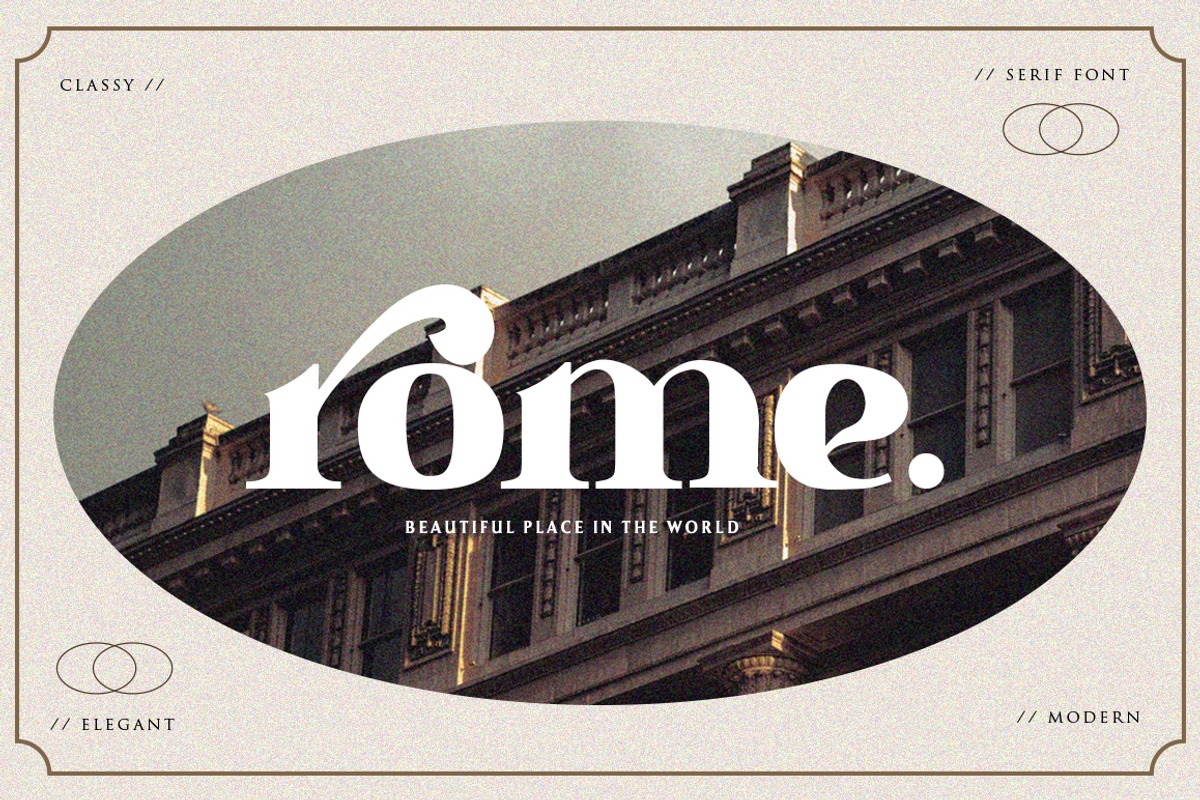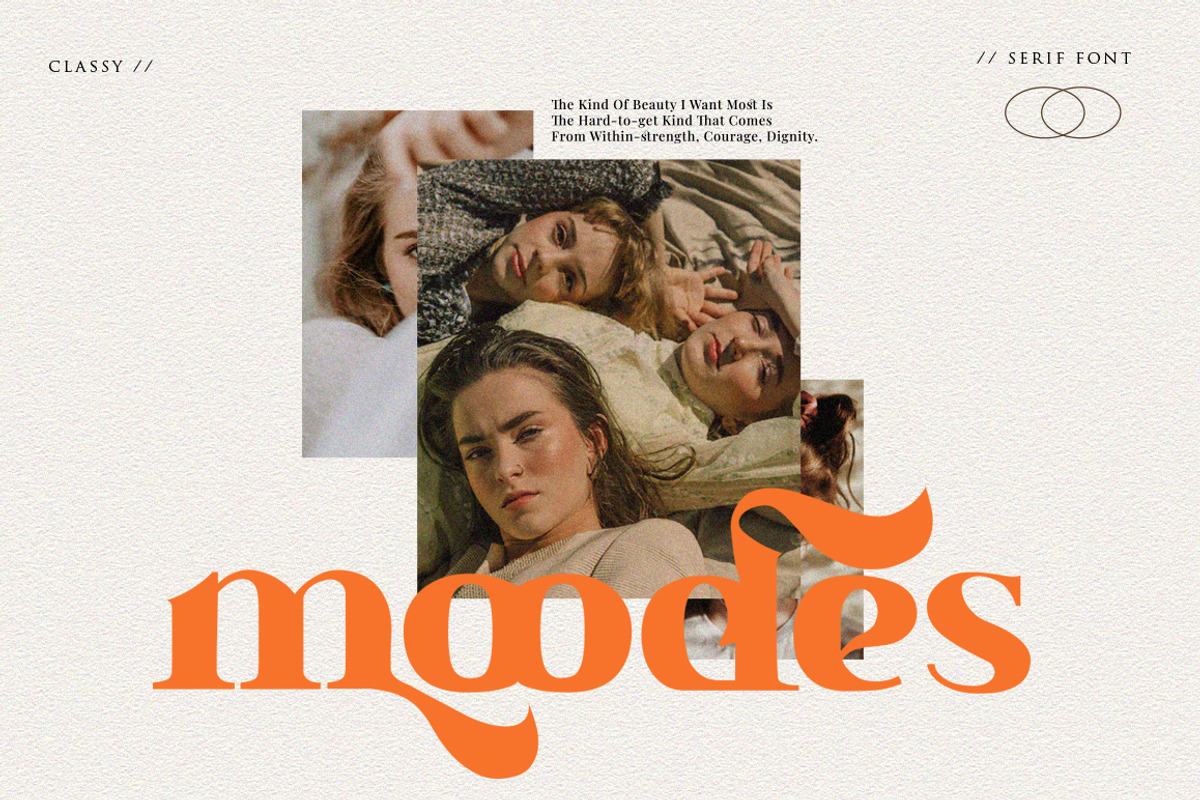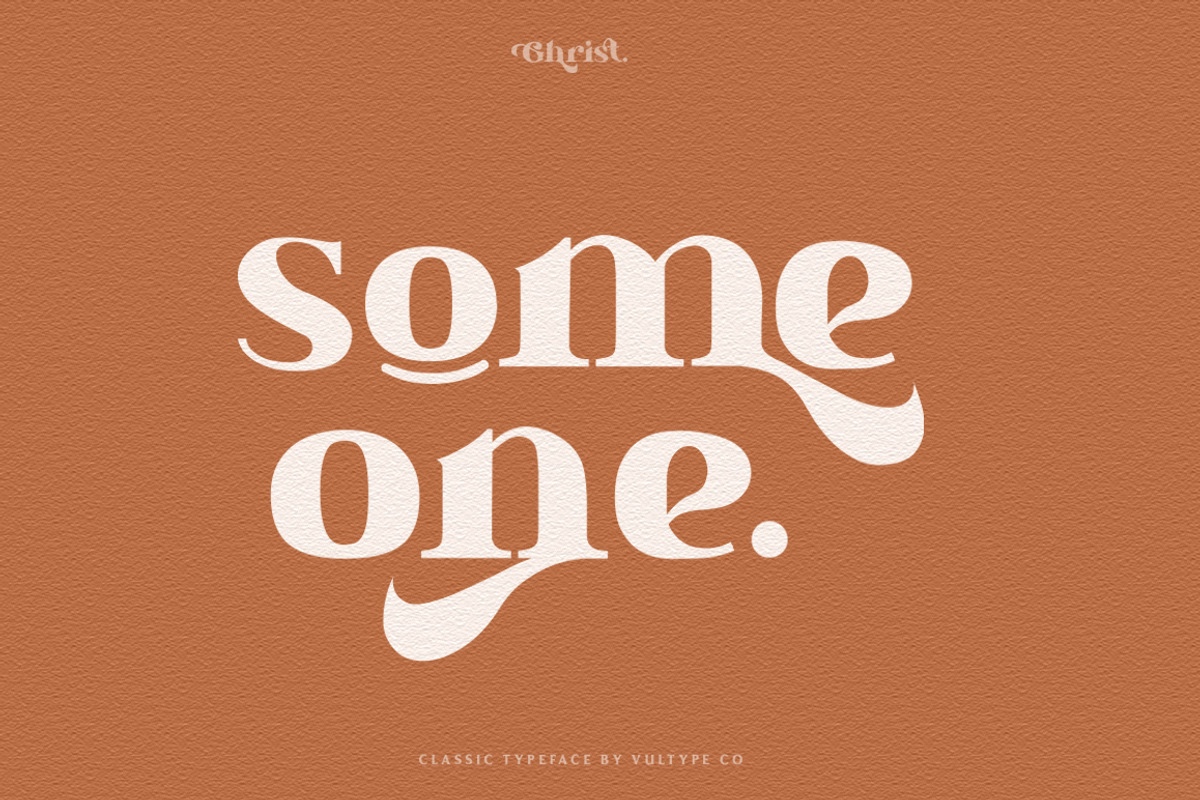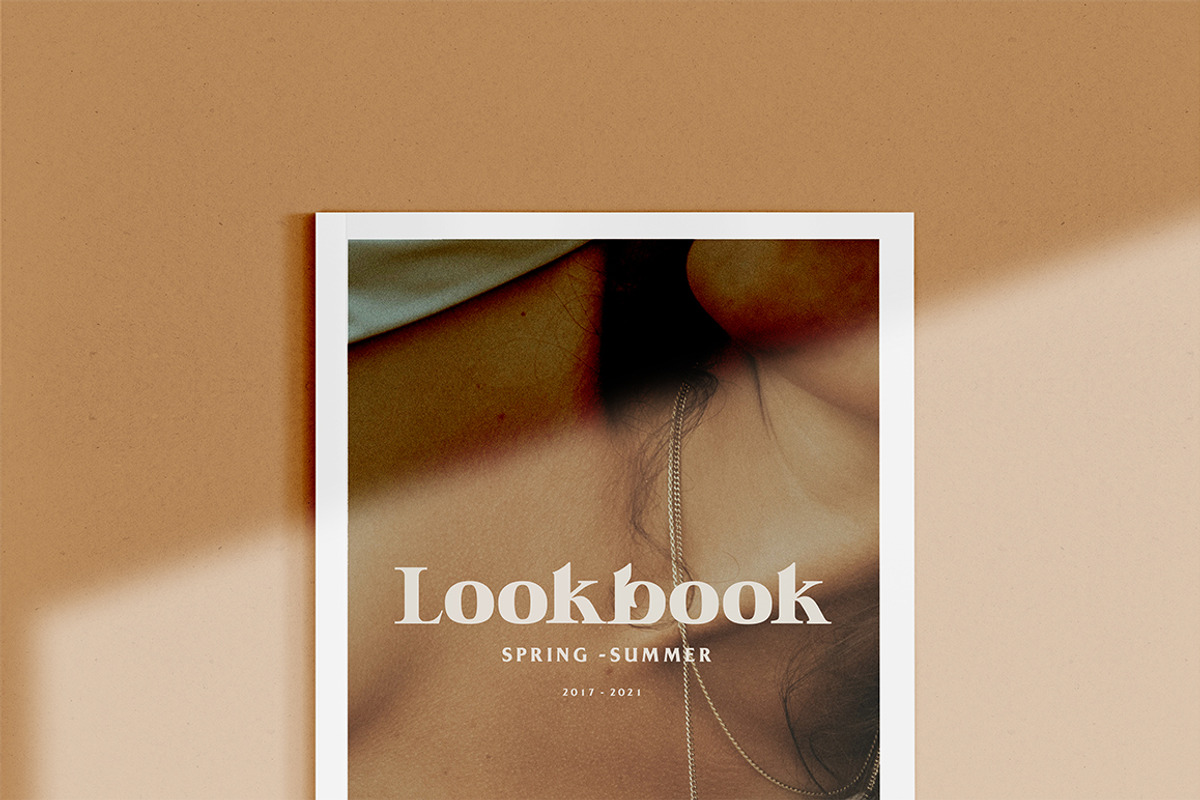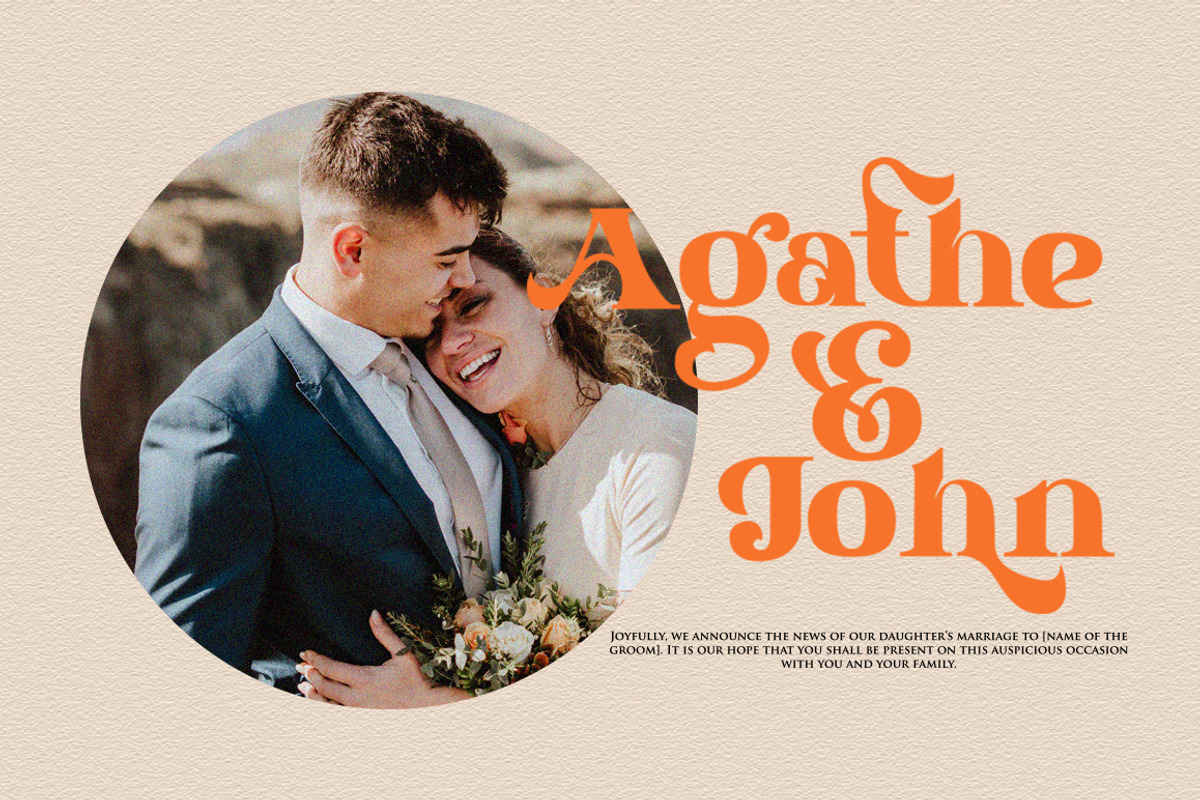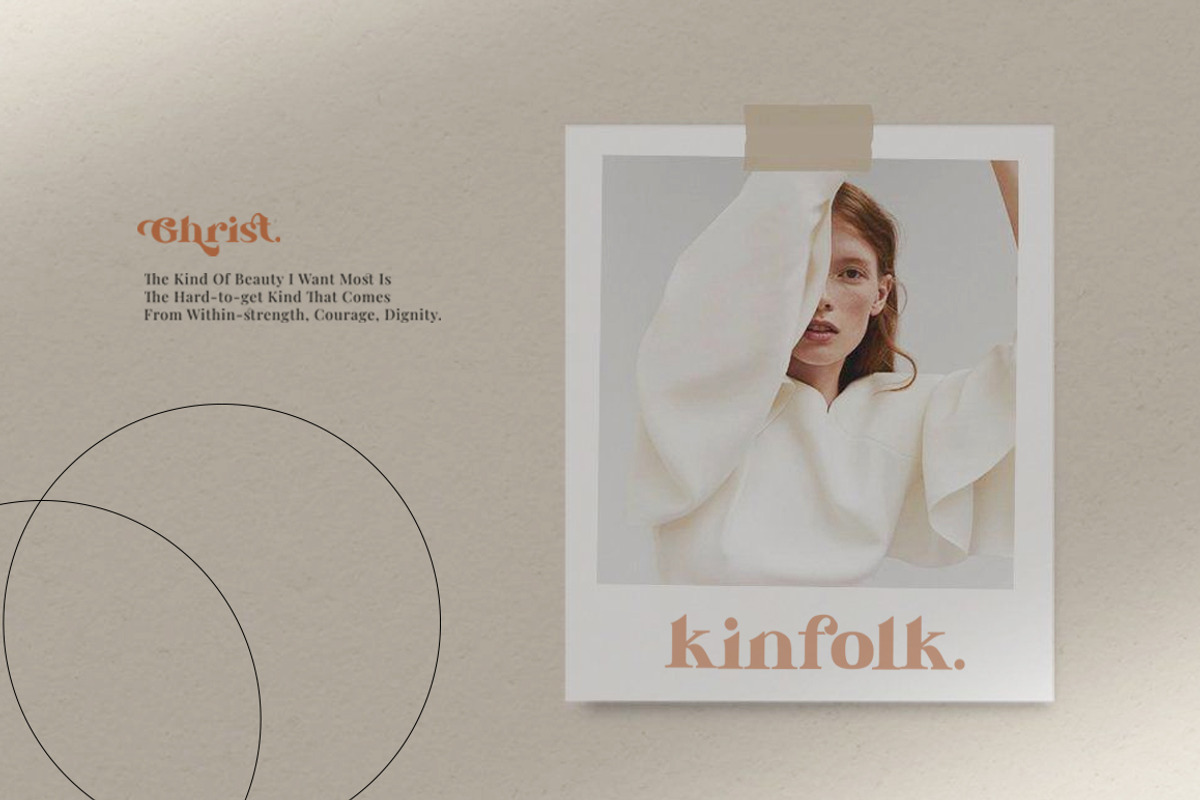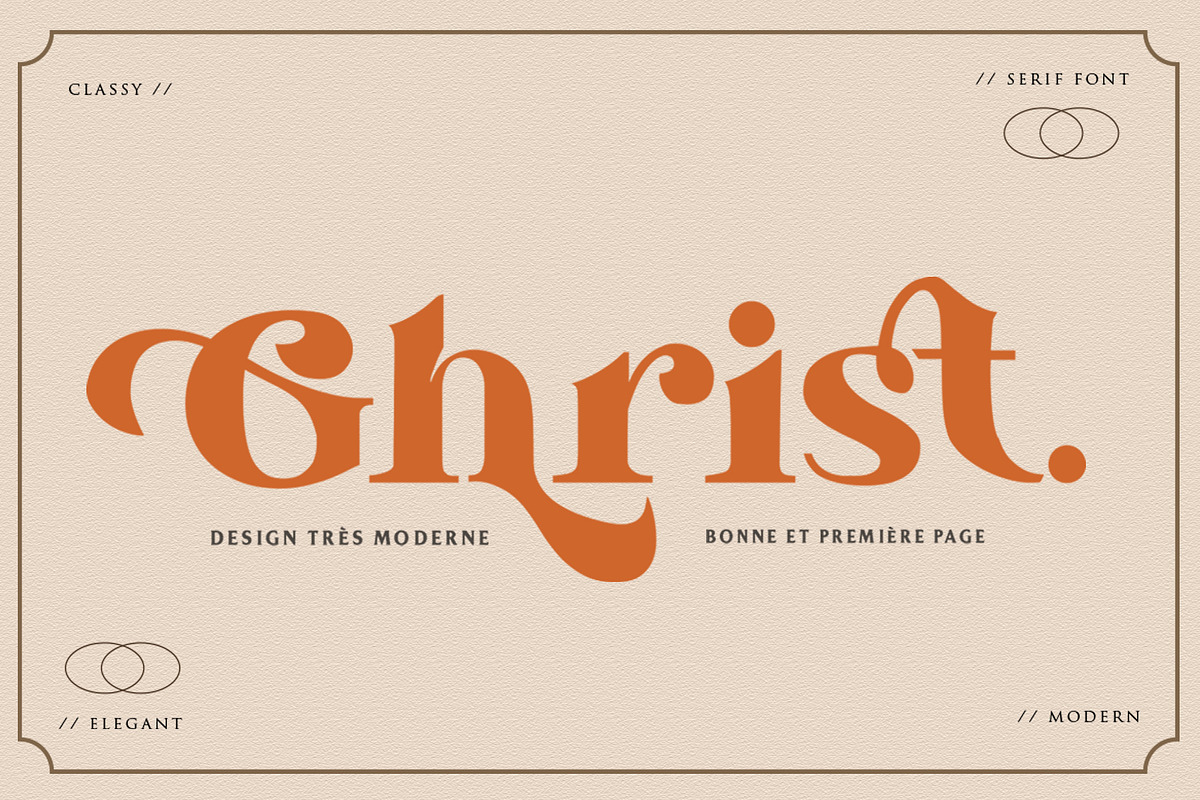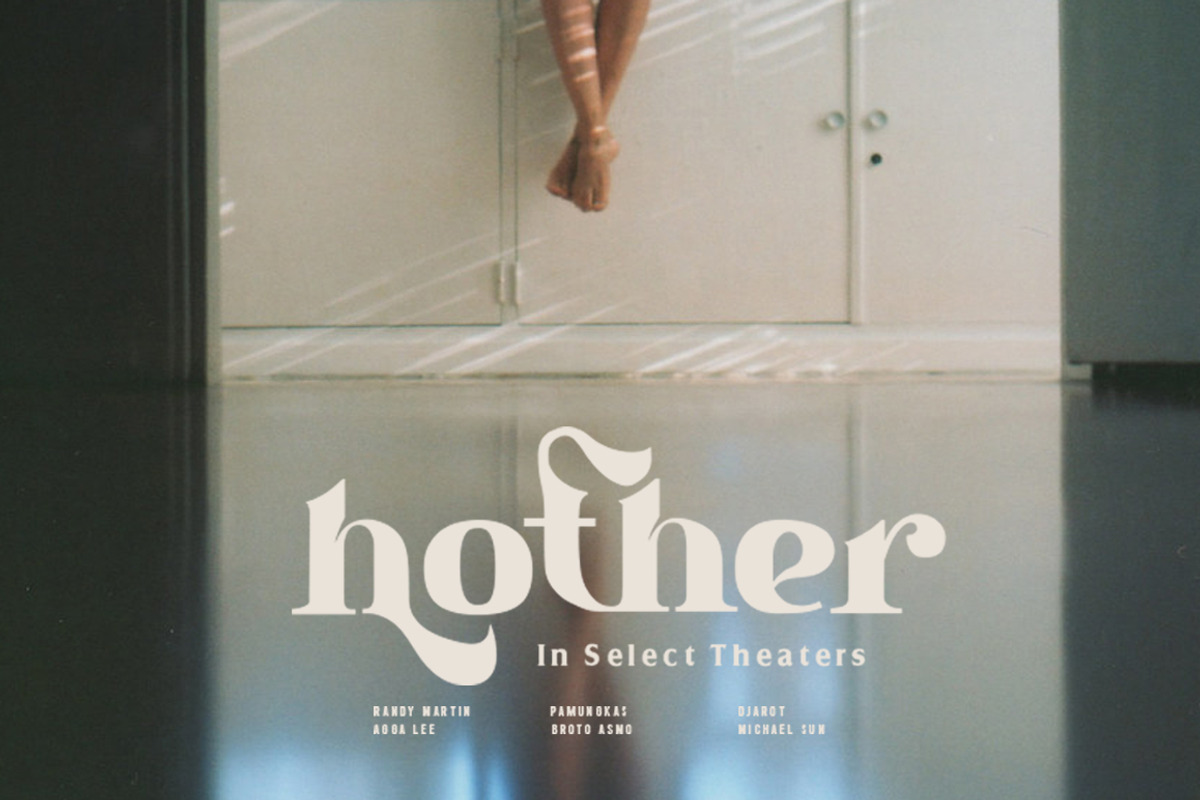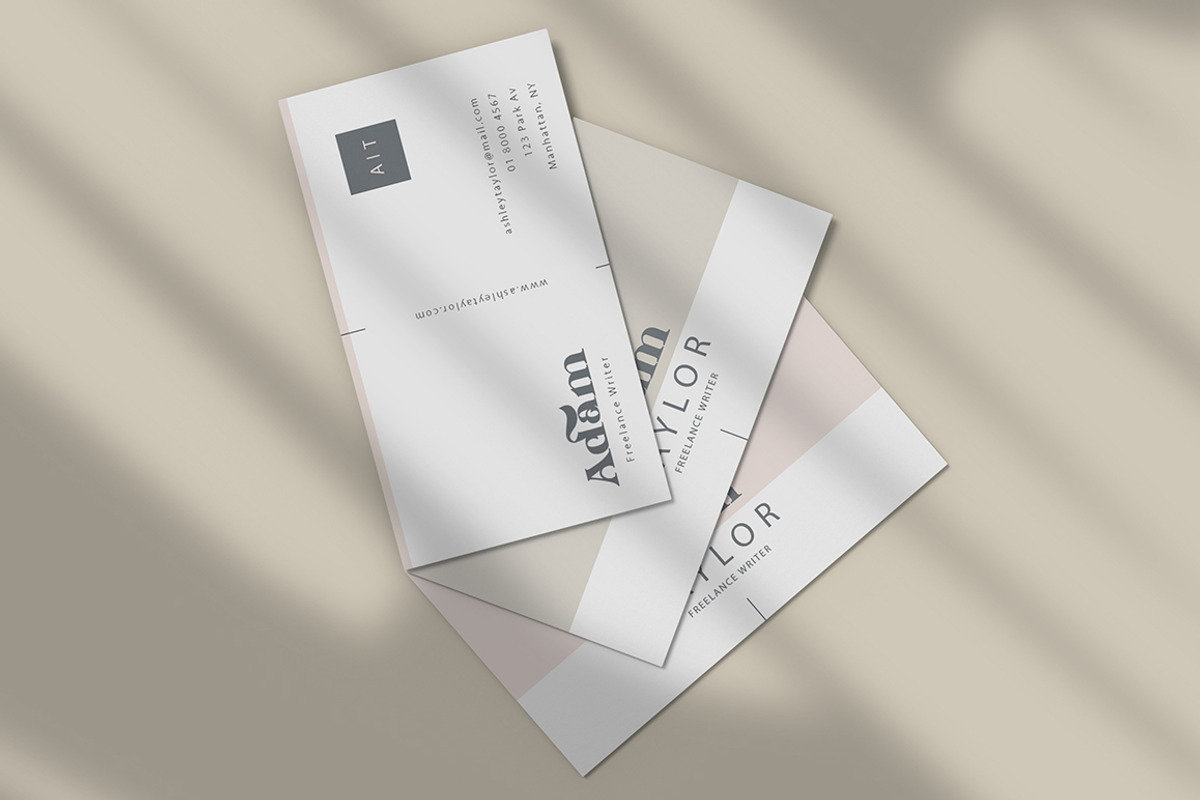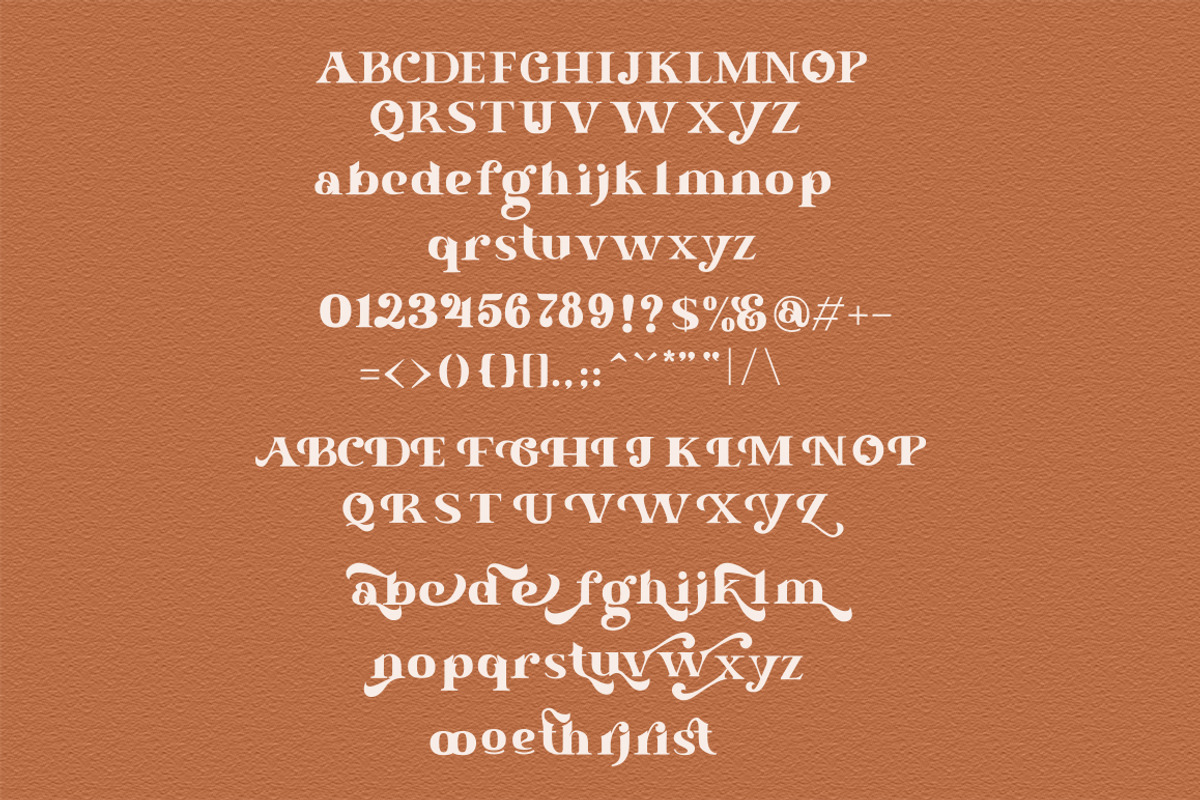
Introducing Ghrist – a Classic serif font
Beautiful and soft fonts in a contemporary style that can make your design projects look modern, elegant and luxurious. Made with many alternative characters to make it easier for you to do various design projects and give you fun while typing.
You can apply them to designs like social media posts, logos, merchandise, book covers, posters, video content thumbnails, quotes, landing pages, wedding invitations and much more which you can make with this great item for any design :)
Ghrist Features :
- Lowercase and Uppercase
- Stylistic Alternates & Ligatures